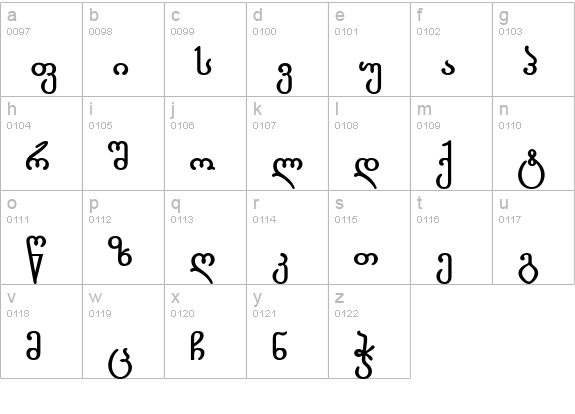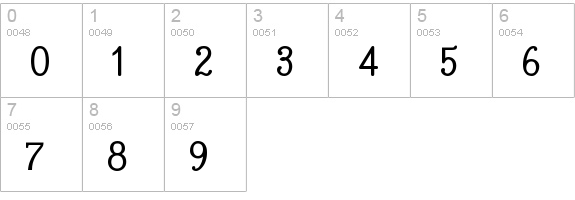
Gorda-ITV Bold Font Details
Gorda-ITV Bold is a strong, high-contrast variant in the Gorda typeface family \xE2\x80\x94 well suited to headlines, attention-grabbing titles, and strong calls-to-action.
Gorda-ITV Bold is a versatile and modern font that exudes confidence and sophistication. Its bold and eye-catching design makes it perfect for headlines, titles, and branding projects. The strong and sturdy letterforms of Gorda-ITV Bold make a bold statement while maintaining a sense of elegance. This font is freely available to download at FontsMarket.com, allowing designers and creatives to easily access and incorporate it into their projects. Whether you're working on a poster, website design, or logo, Gorda-ITV Bold is sure to make a lasting impression. With its clean lines and bold presence, this font is a must-have for anyone looking to add a touch of modernity and style to their designs.